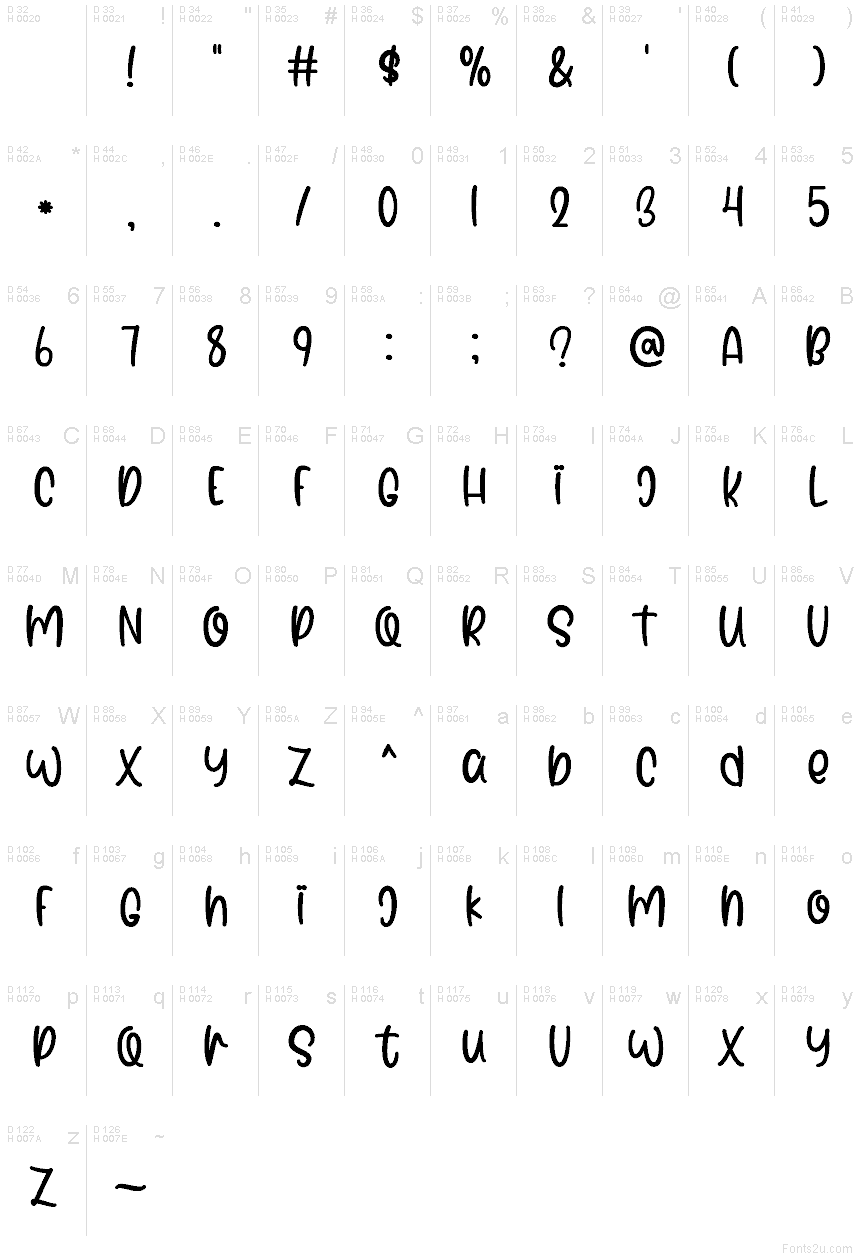
Marshmallow
Marshmallow font is a free display typeface by Fillo Graphic with the perfect cartoon style to bring joy to your projects. It combines curved letters, a casual aesthetic, and whimsical shapes for a friendly and modern outcome. Consider it in branding ideas or invitations; it will be as smooth and as sticky as anyone would imagine.
Handmade in every detail, Marshmallow is suitable for designing comics, exhibition banners, packaging boxes, drink labels/menus (coffee shops), or apparel design. Working on something digital? Use this font on posts for social media platforms like Instagram or Facebook. Planners, diaries covers/layouts are other suggestions too!